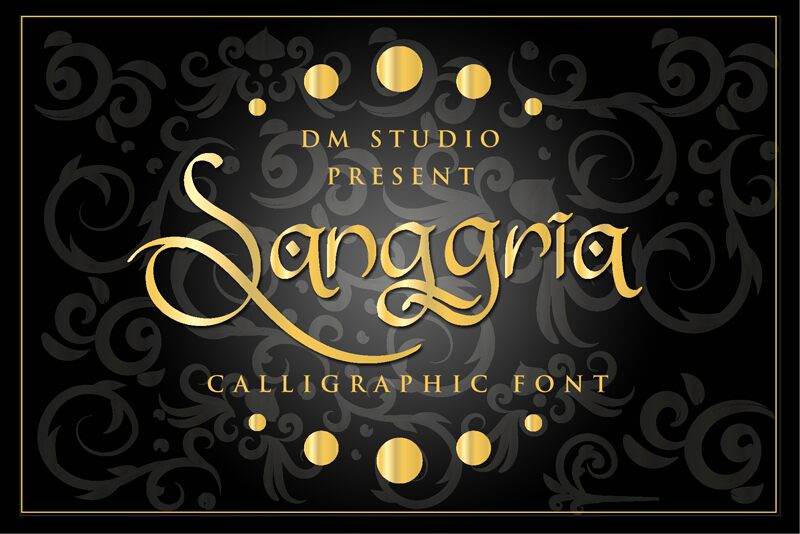
Sanggria, the exquisite calligraphy font by Dm Letter Studio - Dimas Prasetyo, adds a touch of elegance to any project.
With its delicate strokes and graceful curves, this light-weight font is perfect for wedding invitations, greeting cards, and feminine branding. Its flowing script captures the essence of romance and sophistication, making it an ideal choice for fashion magazines, beauty blogs, and luxury brands.
Whether you're designing a logo or crafting a social media post, Sanggria will elevate your visuals with its timeless charm.